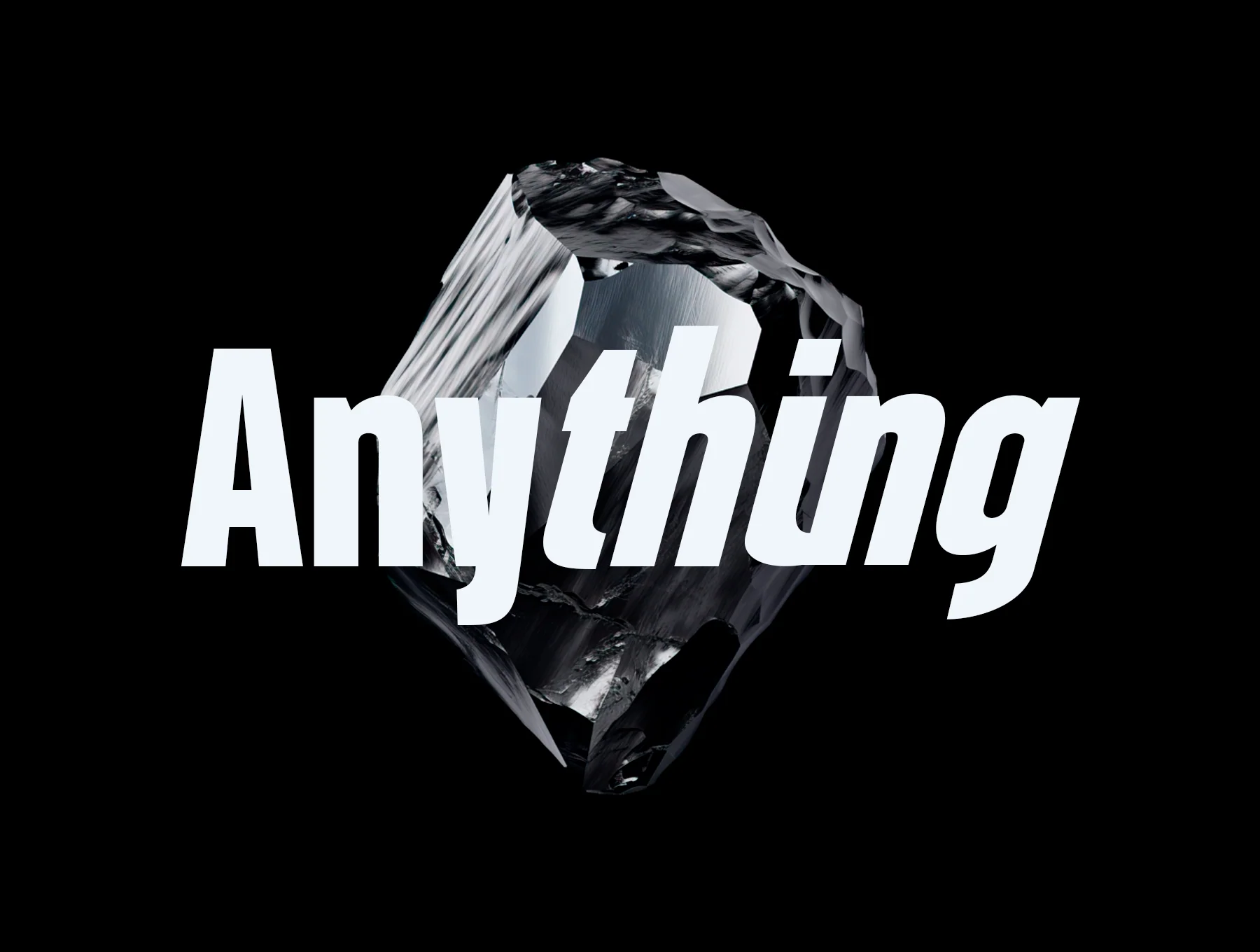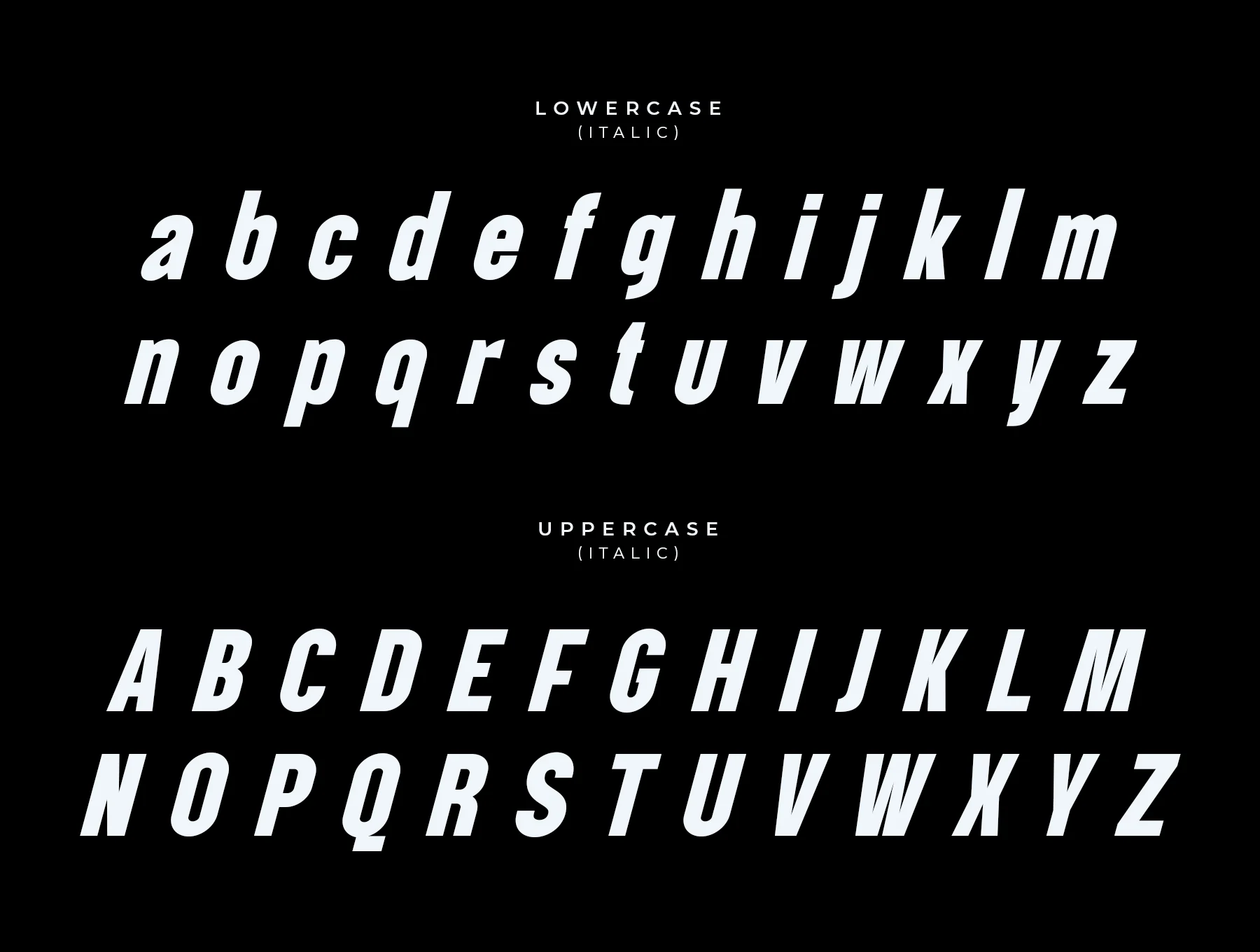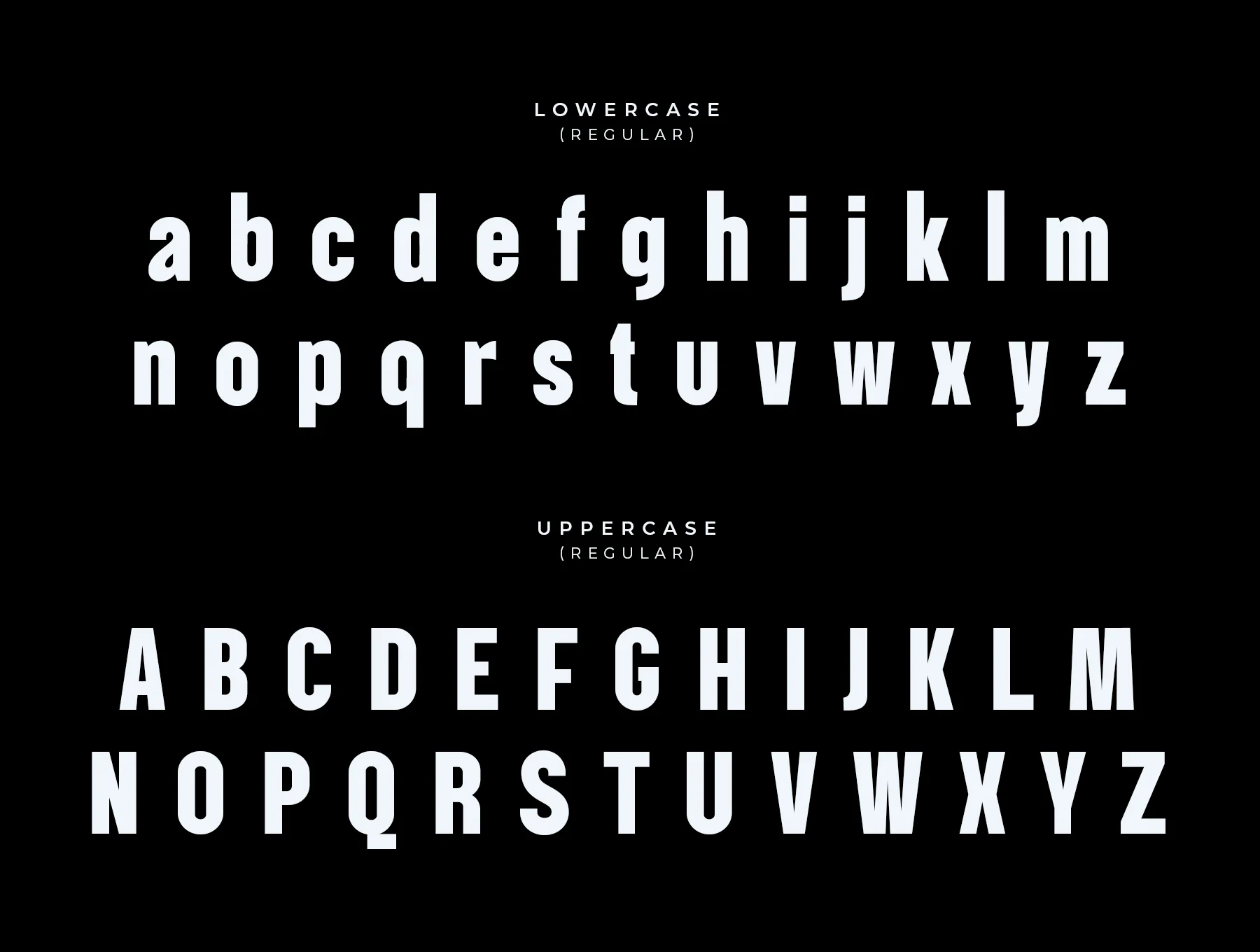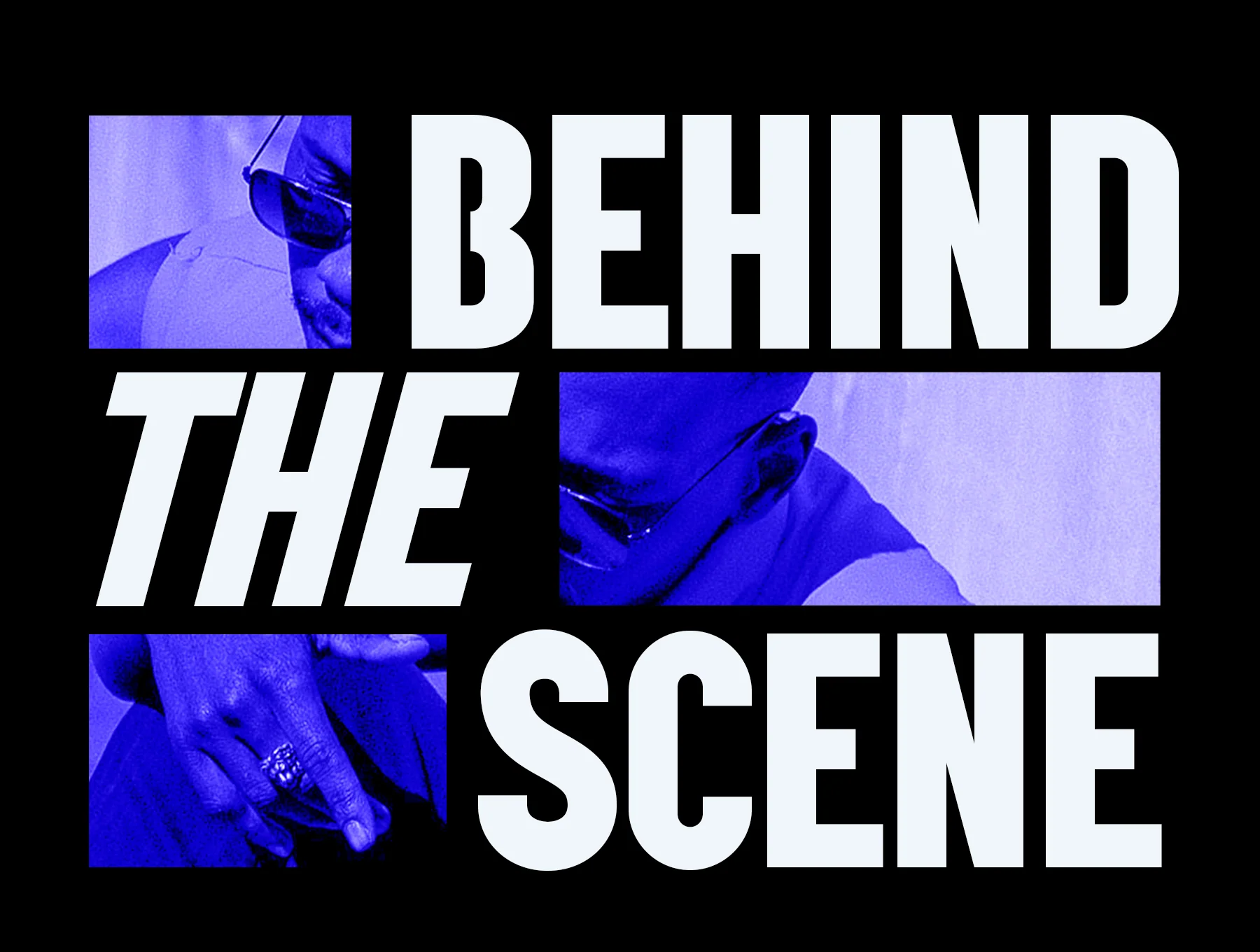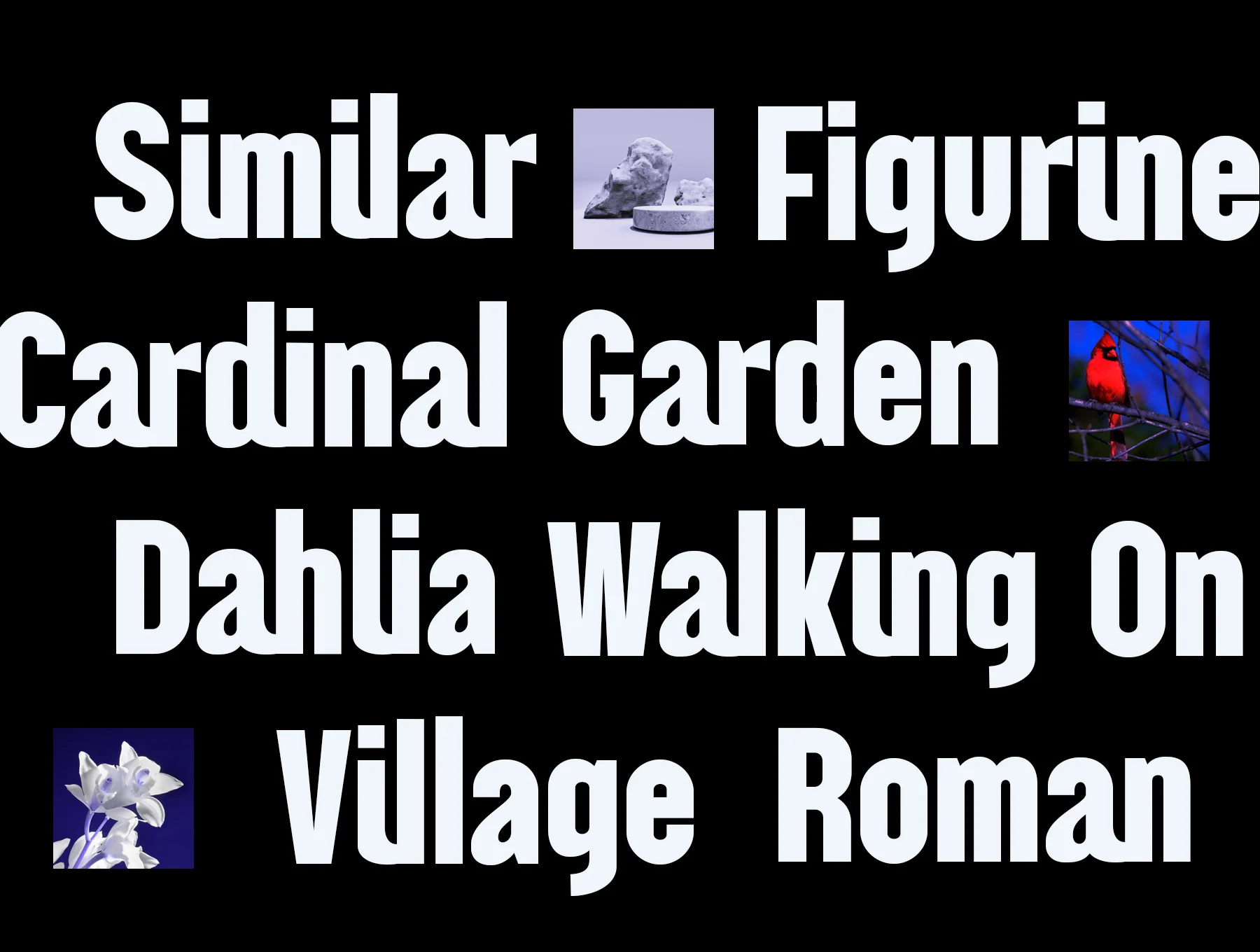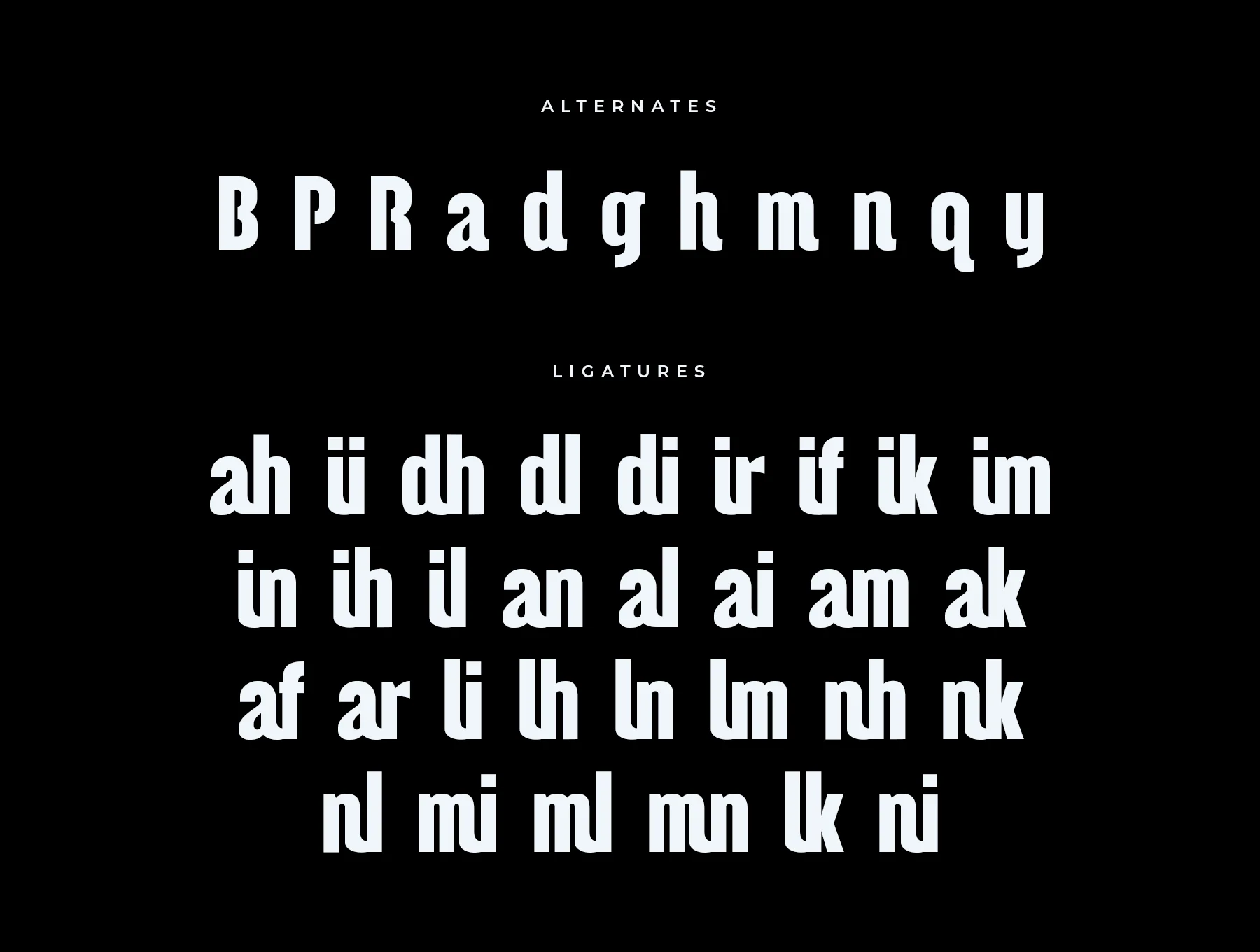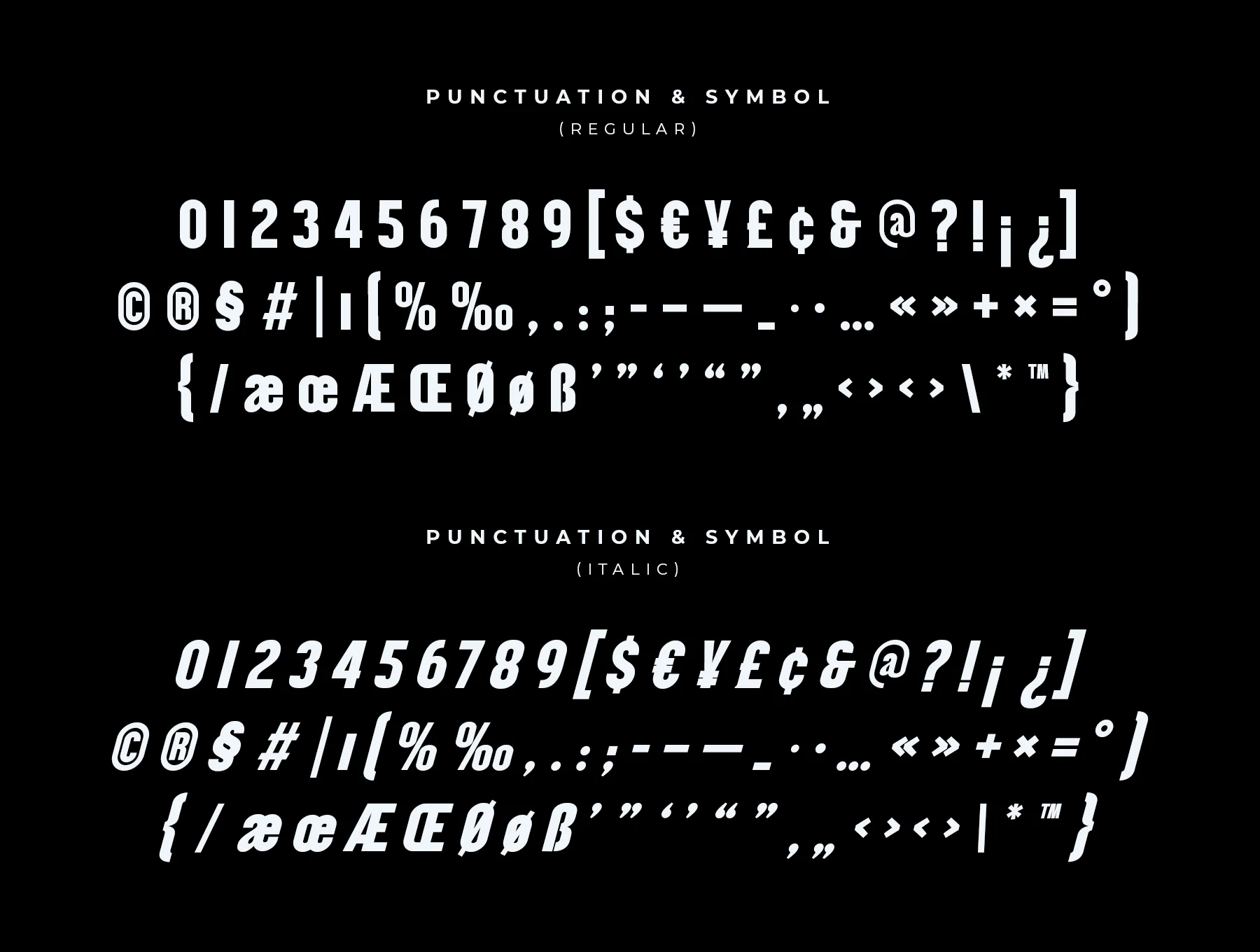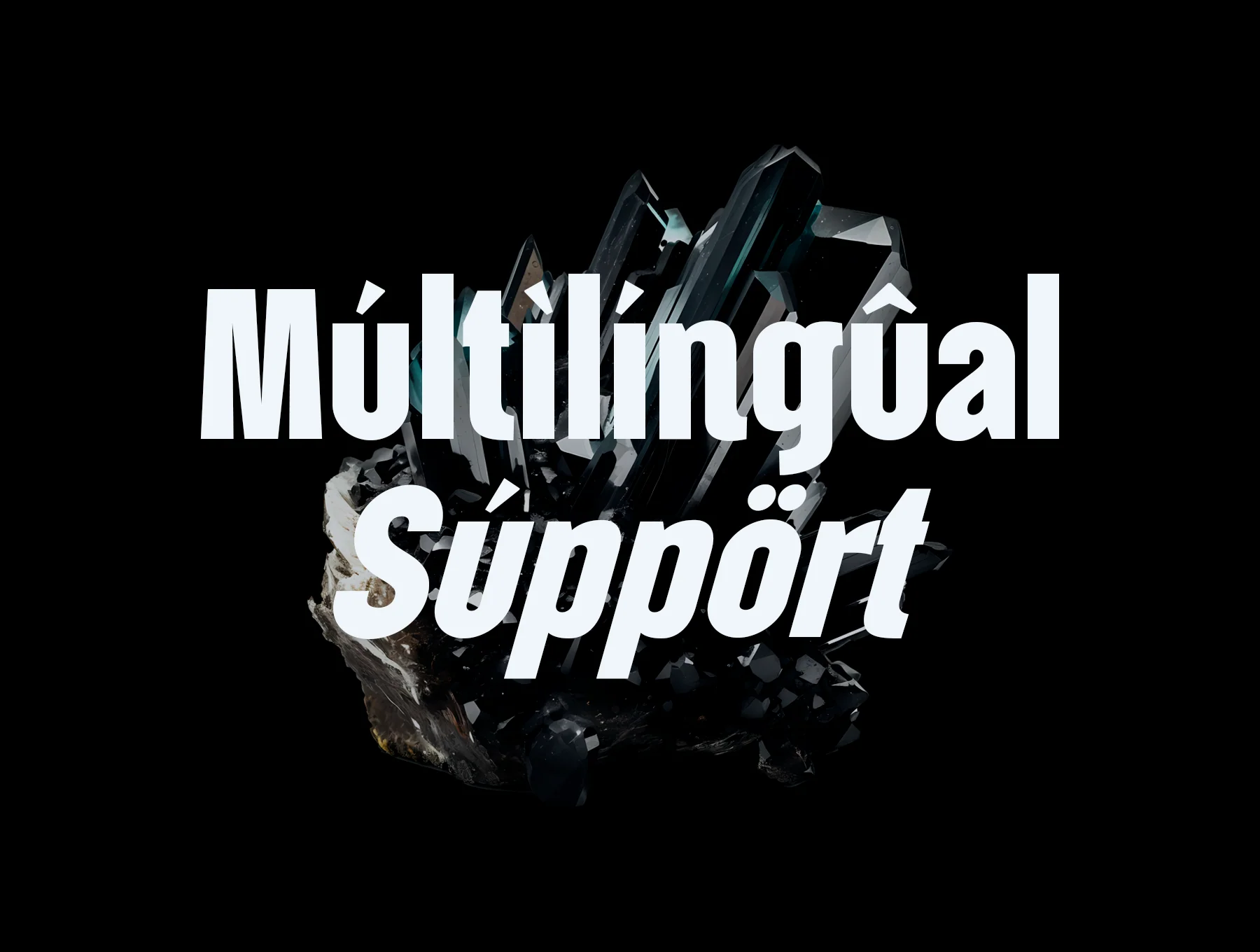
Anything Font
Anything inspired by Helvetica typeface
All Anything Font styles: Regular, Italic, Bold, Bold Italic
A through Z character set
Options for creative variations through ligature combinations
Uppercase and lowercase
A custom sans serif designed for distinctive branding, with unique ligatures that help your brand stand out. It offers designers and product owners a modern, refined solution for more original visuals. Built with extra ligature options, this font gives you flexible combinations for endless creative use.